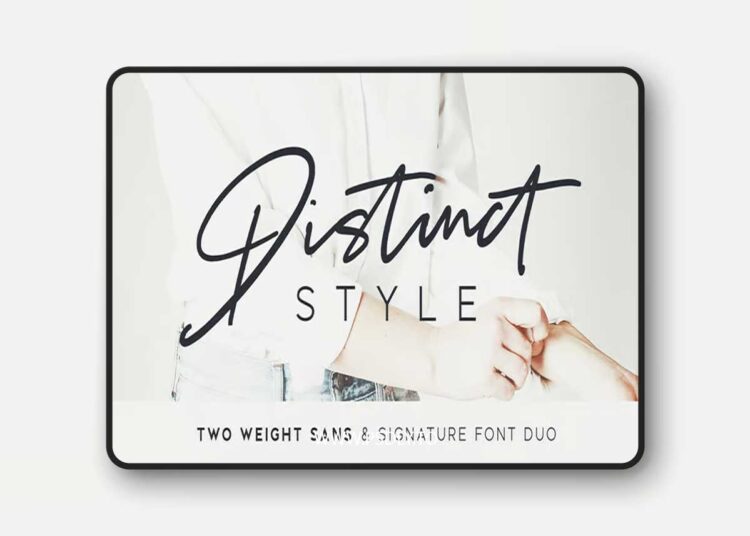
Distinct Style Font Duo
Get stylish with Distinct Style, a fashionable and contemporary pair of signature & sans fonts designed to perfectly compliment one another. With a fast-flowing script font and a two-weight modern sans serif, the Distinct Style duo offers typographic harmony for your professional design projects, including; logos, branding, magazines, blog posts, social media, advertisements & product designs.